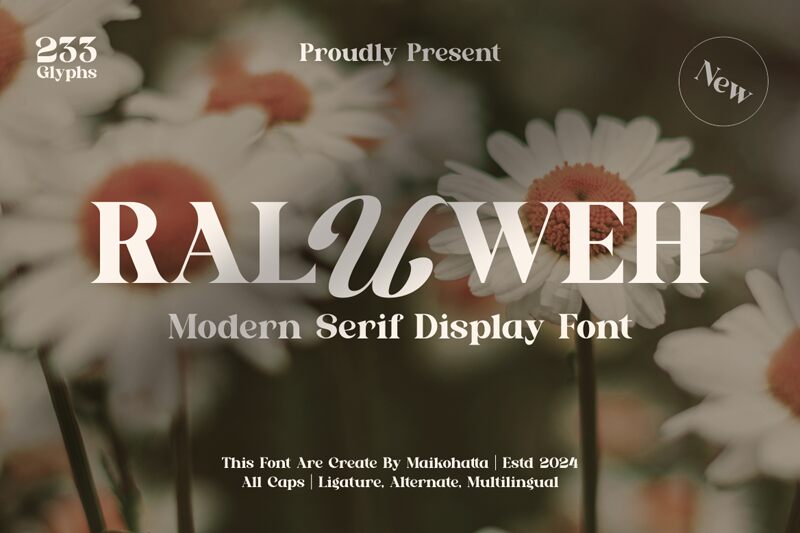
Raluweh font family by Gilang Ternadho is a free playful serif font choice for your personal design projects. It contains two styles that reflect the poetic spirit inspired by traditional calligraphy. The fonts are stylish, impactful, and contemporary. The font is perfect for any whimsical designs such as invitations or greeting cards. However, do not let that limit you as it will look beautiful on whatever you pair it with.
Use this font in branding, logos, clothing labels, packaging, headings, signage, advertising, or books. Pair it with other serif typefaces or handwriting fonts for optimal results.